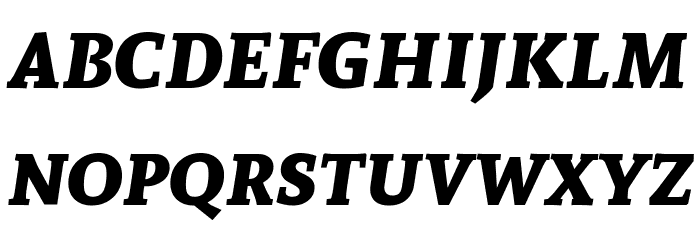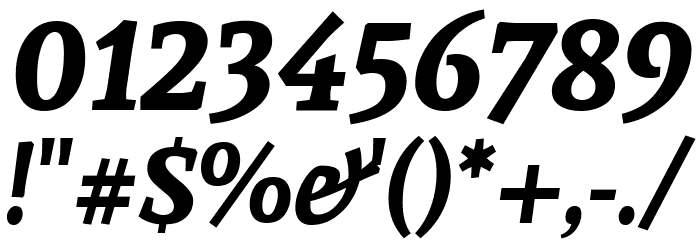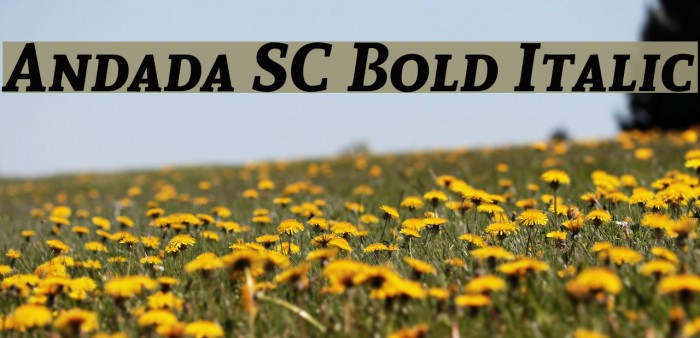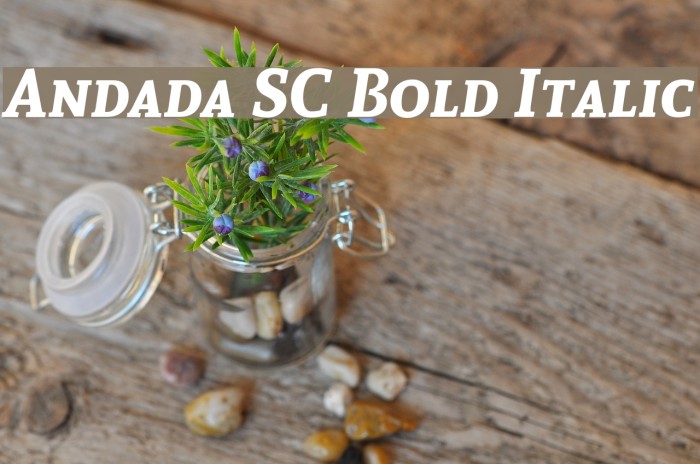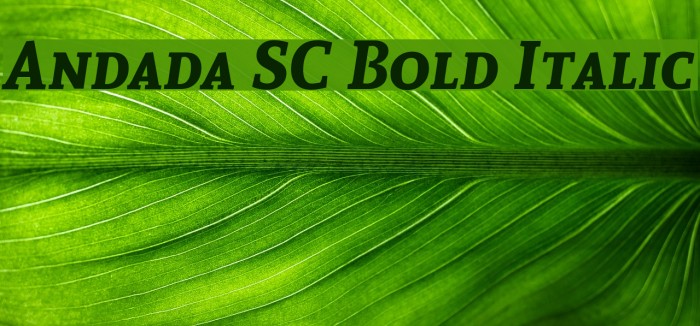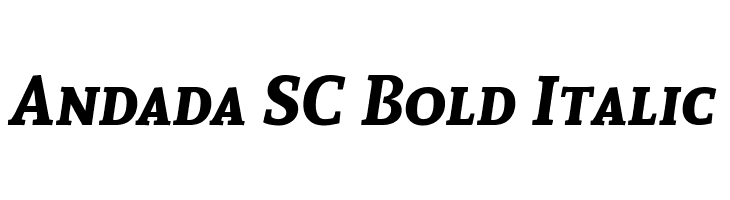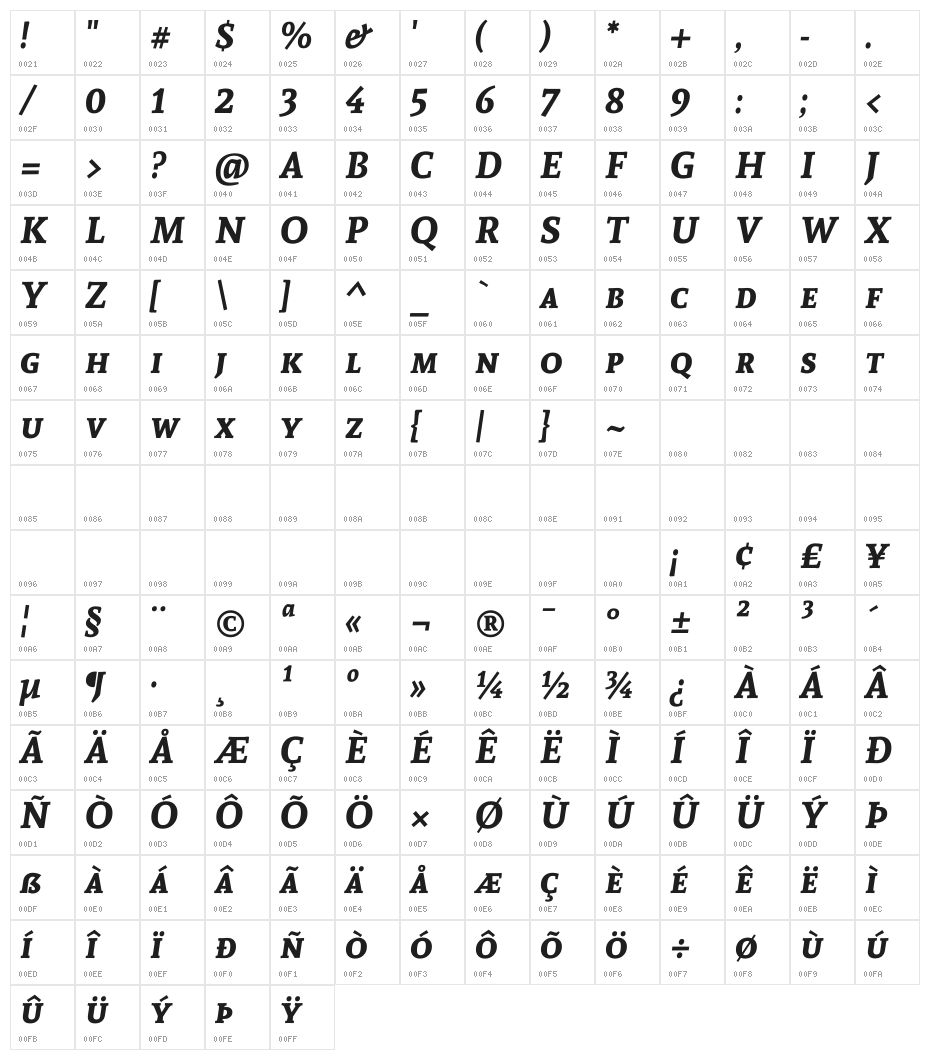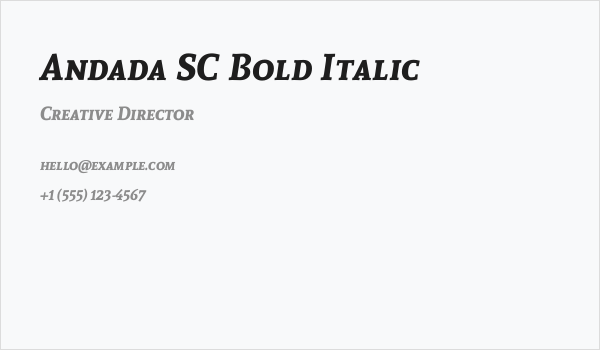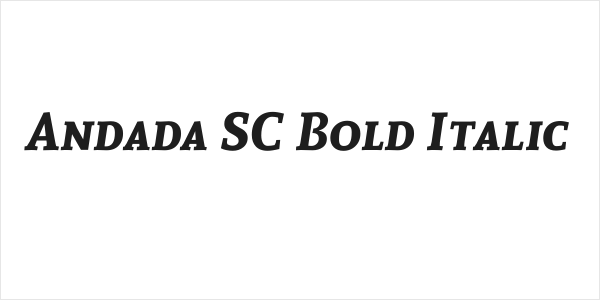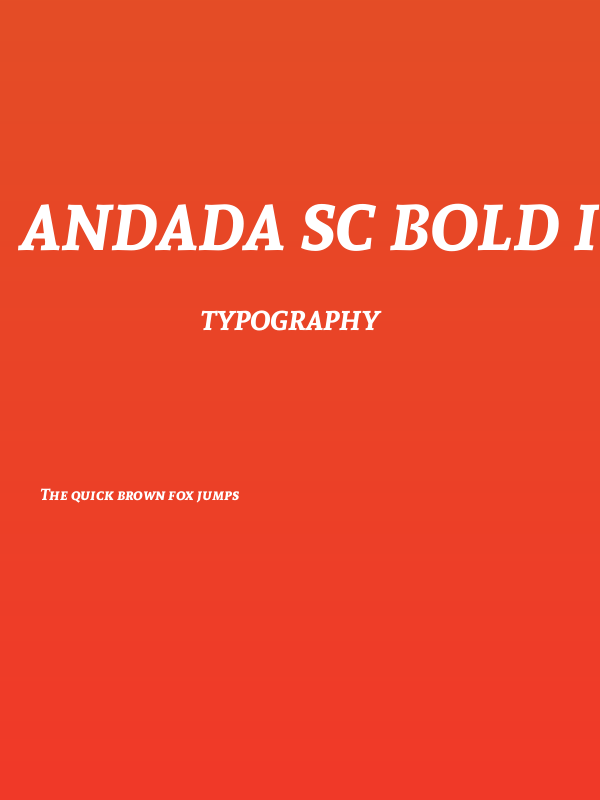
Andada SC Bold Italic Font
This font features a bold and italicized style, combining a strong presence with a dynamic slant. The serifs are pronounced, adding a classic touch to the overall modern design. The characters are well-defined with a medium contrast between thick and thin strokes, providing readability and elegance. The numerals and special characters maintain the same stylistic features, ensuring consistency across all text elements. The font's design is suitable for making a statement while retaining a sense of sophistication.
Bold, italic serif font with medium contrast and classic elegance.
- Proposed Projects: Ideal for branding, headlines, editorial design, and formal invitations.
- Overall Style: Modern Classic
- Use Case: Headlines, Logos, Editorial Design